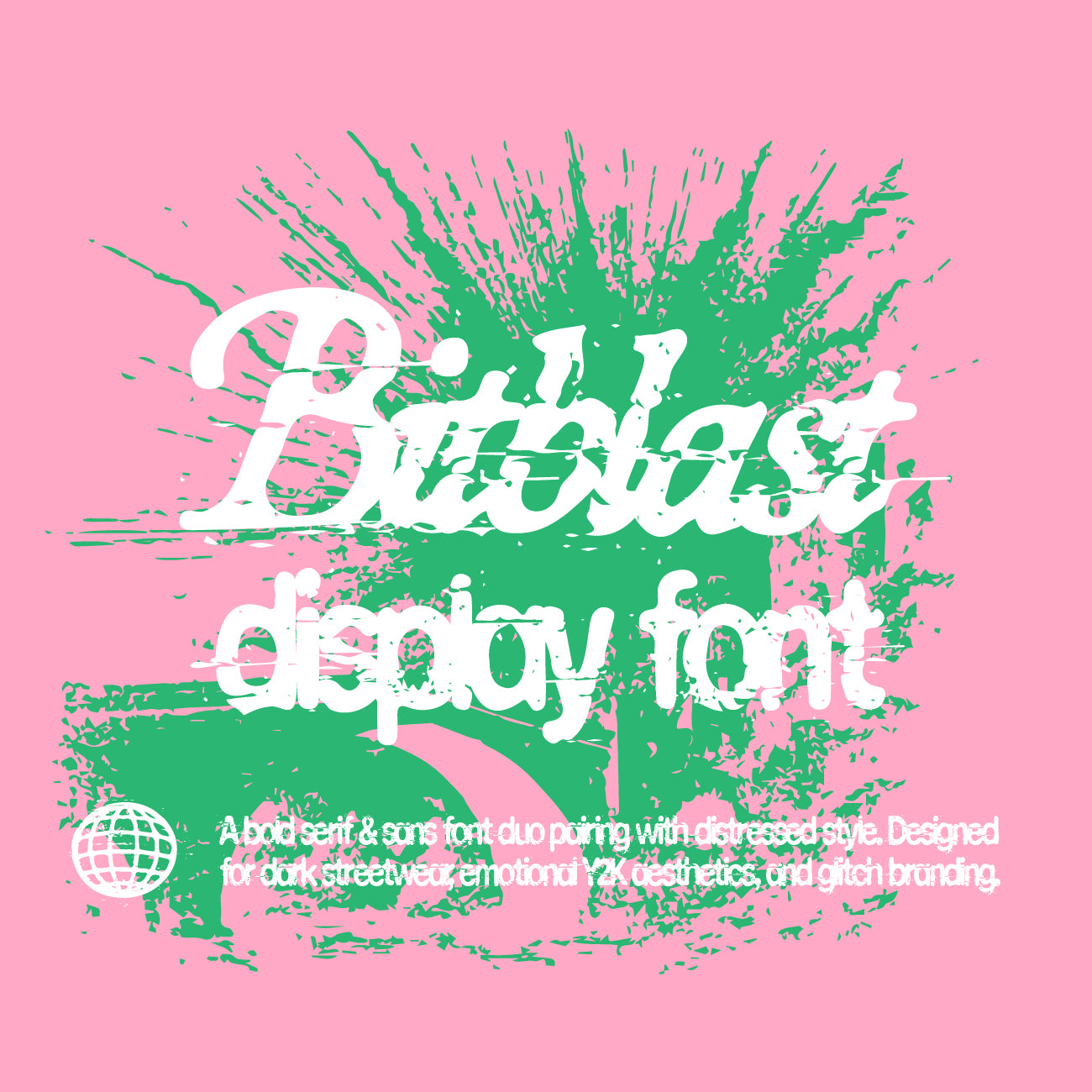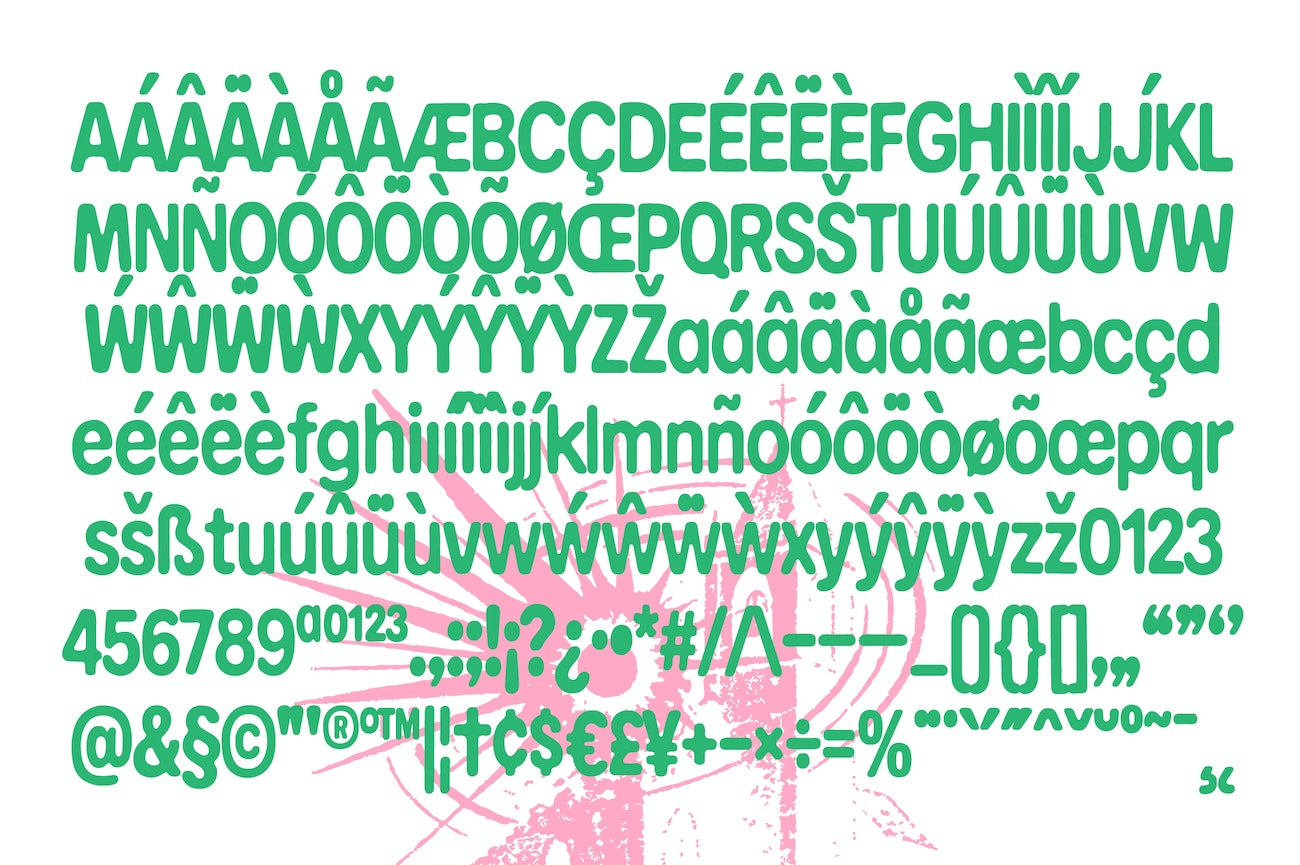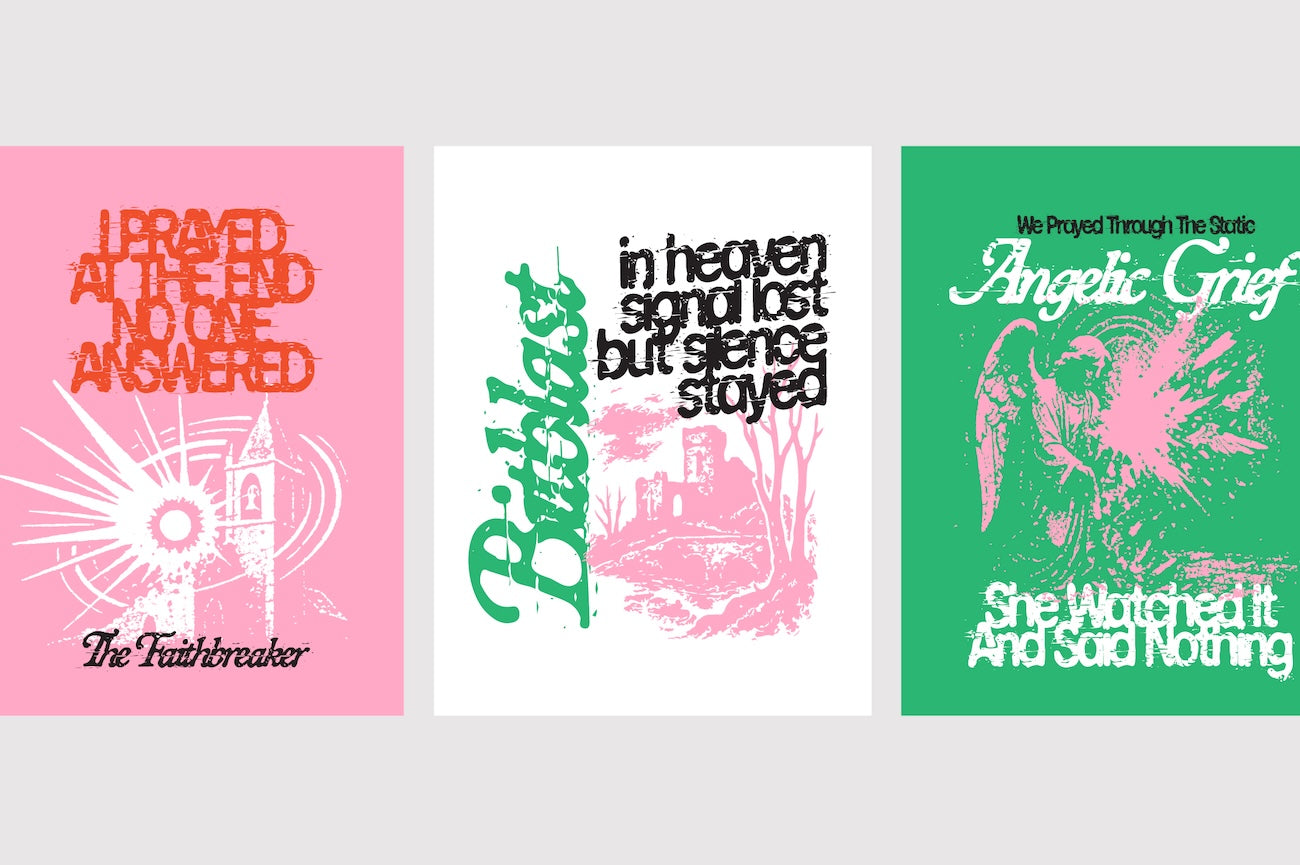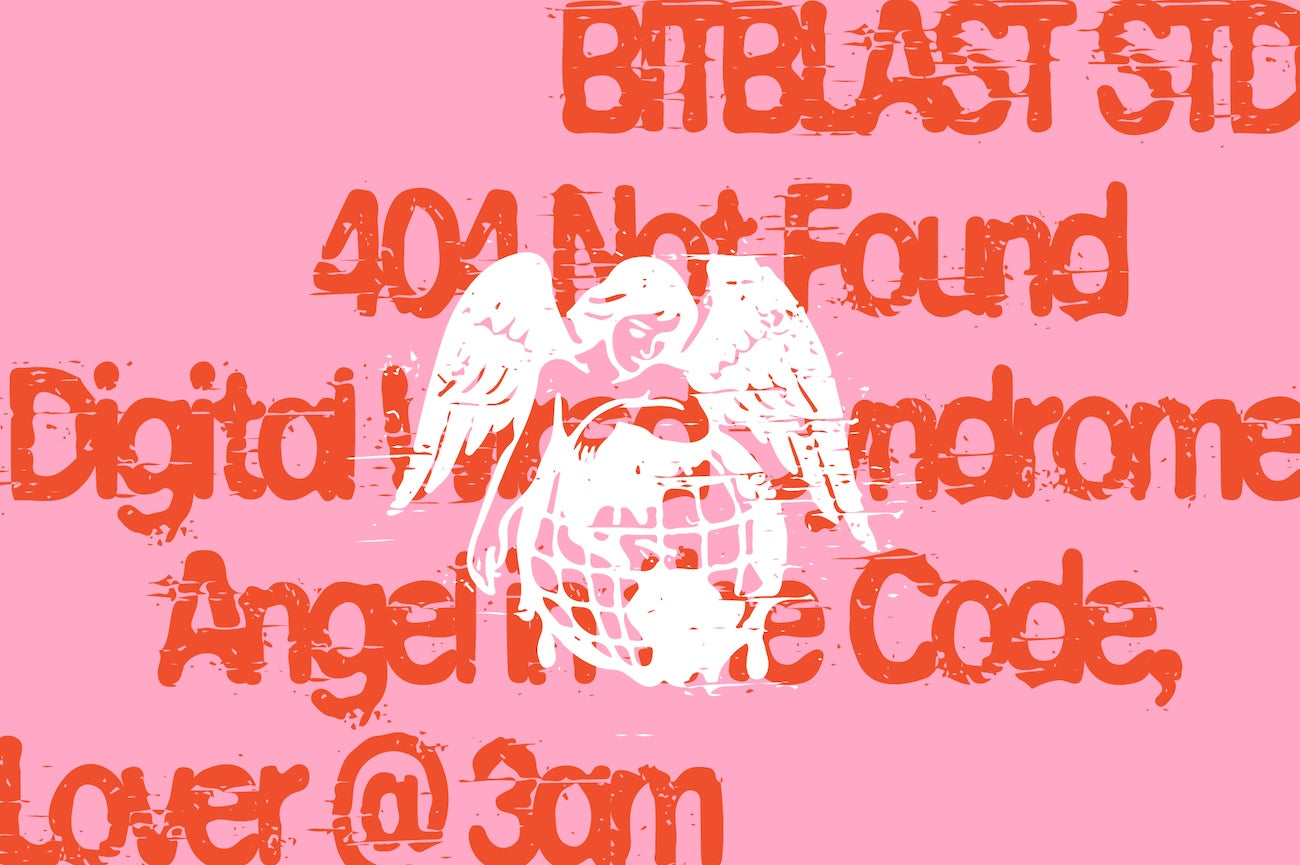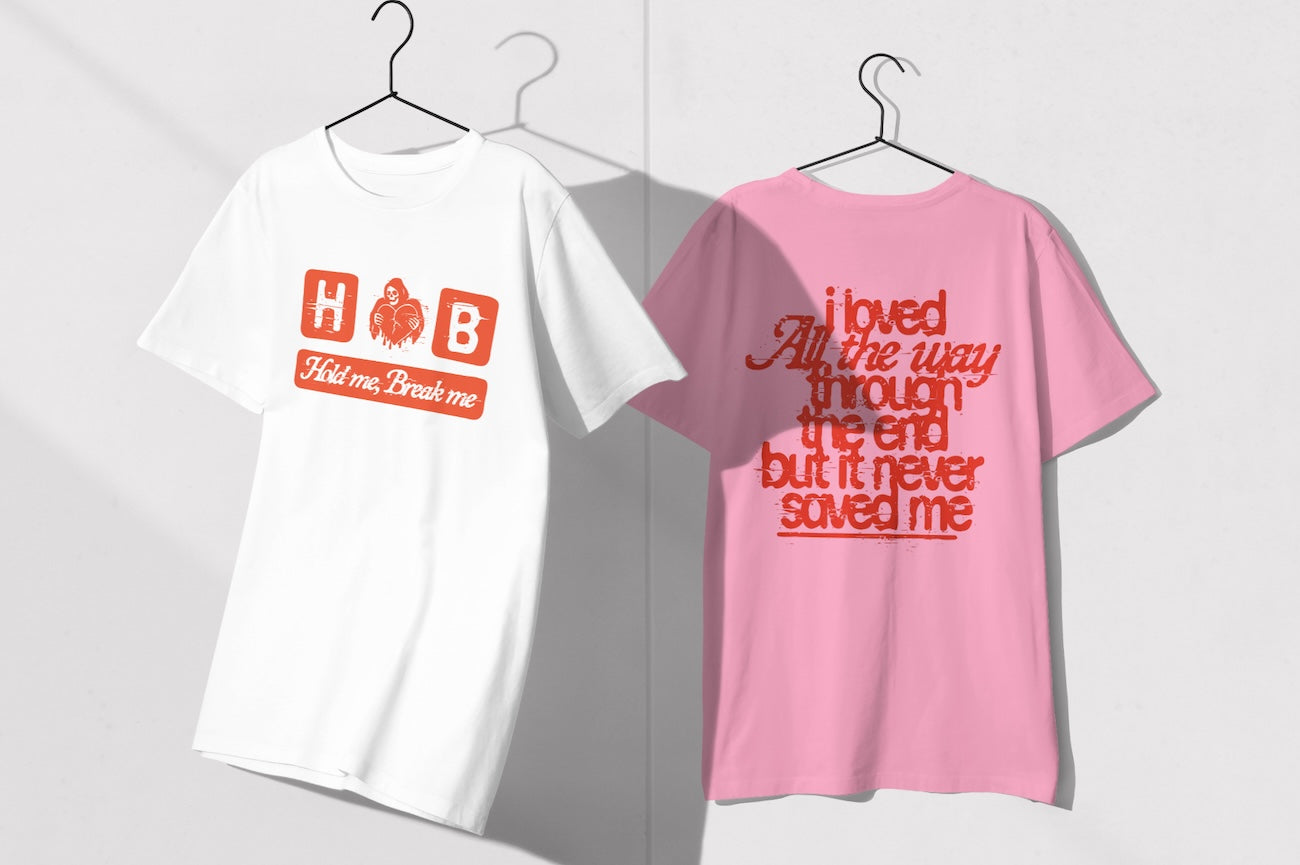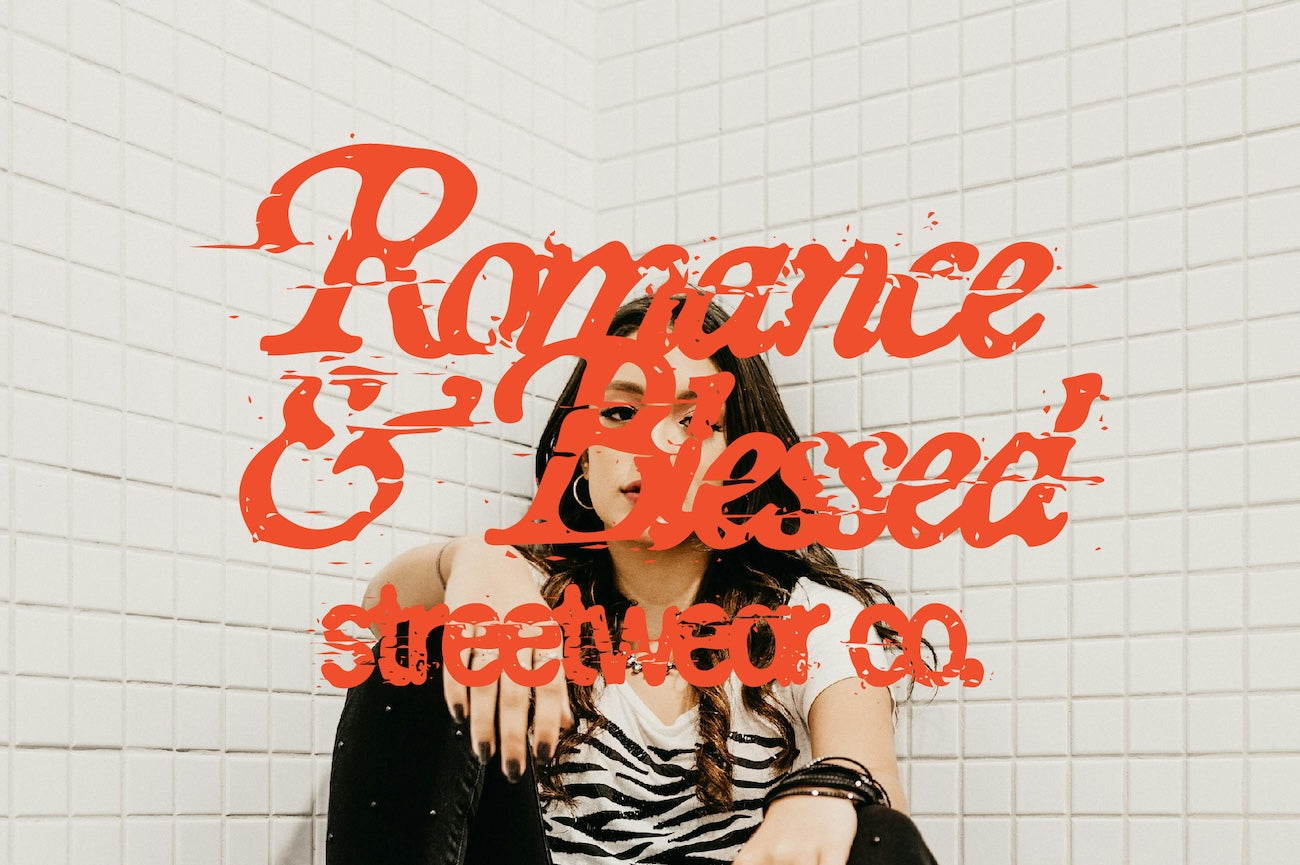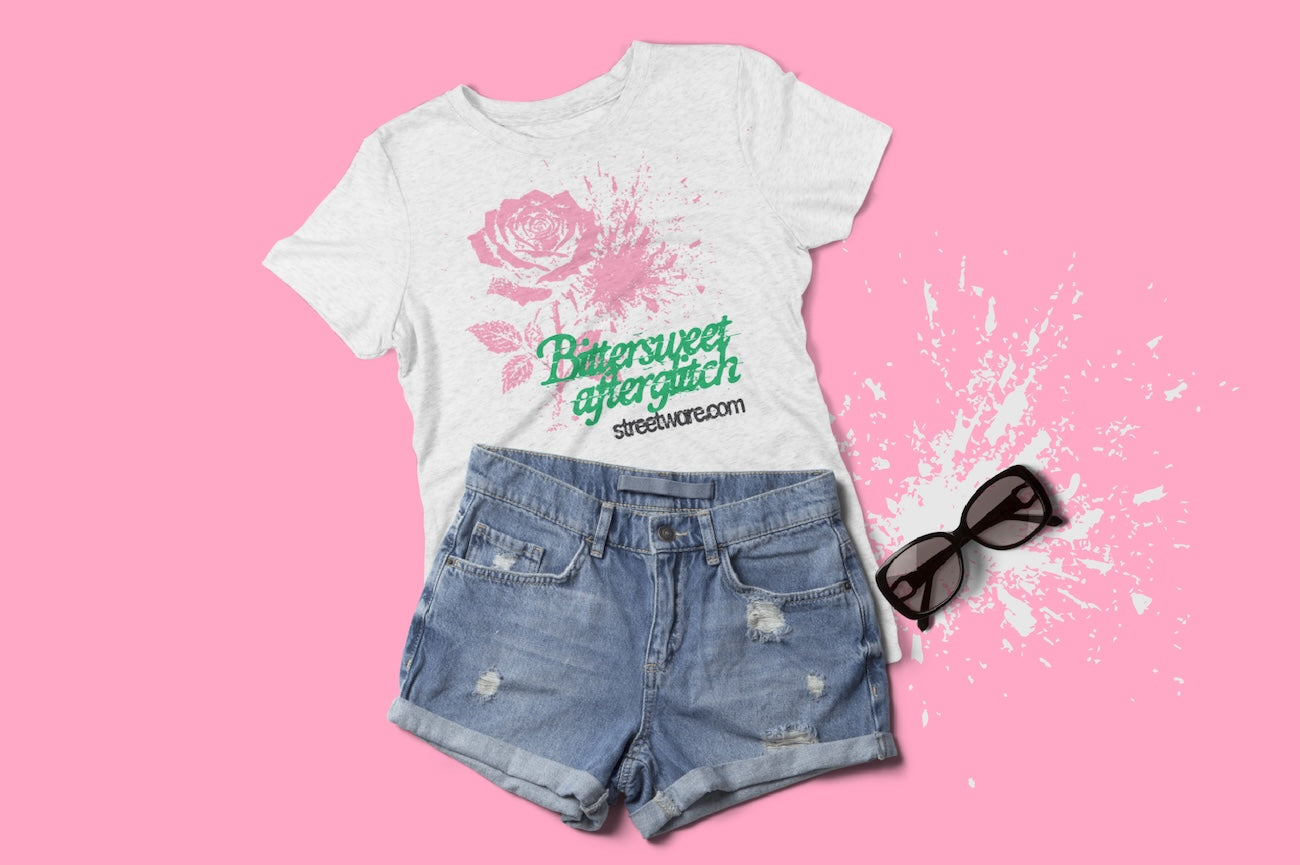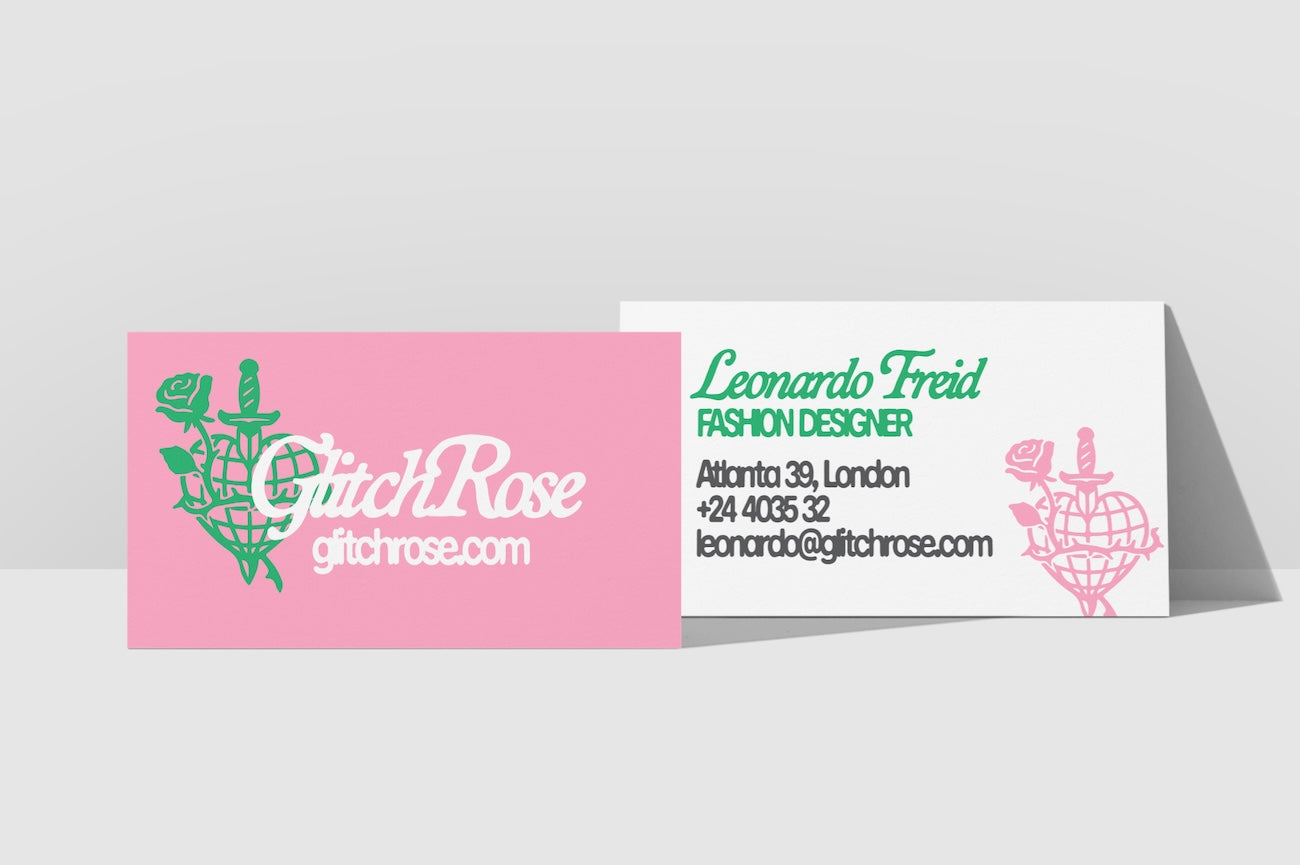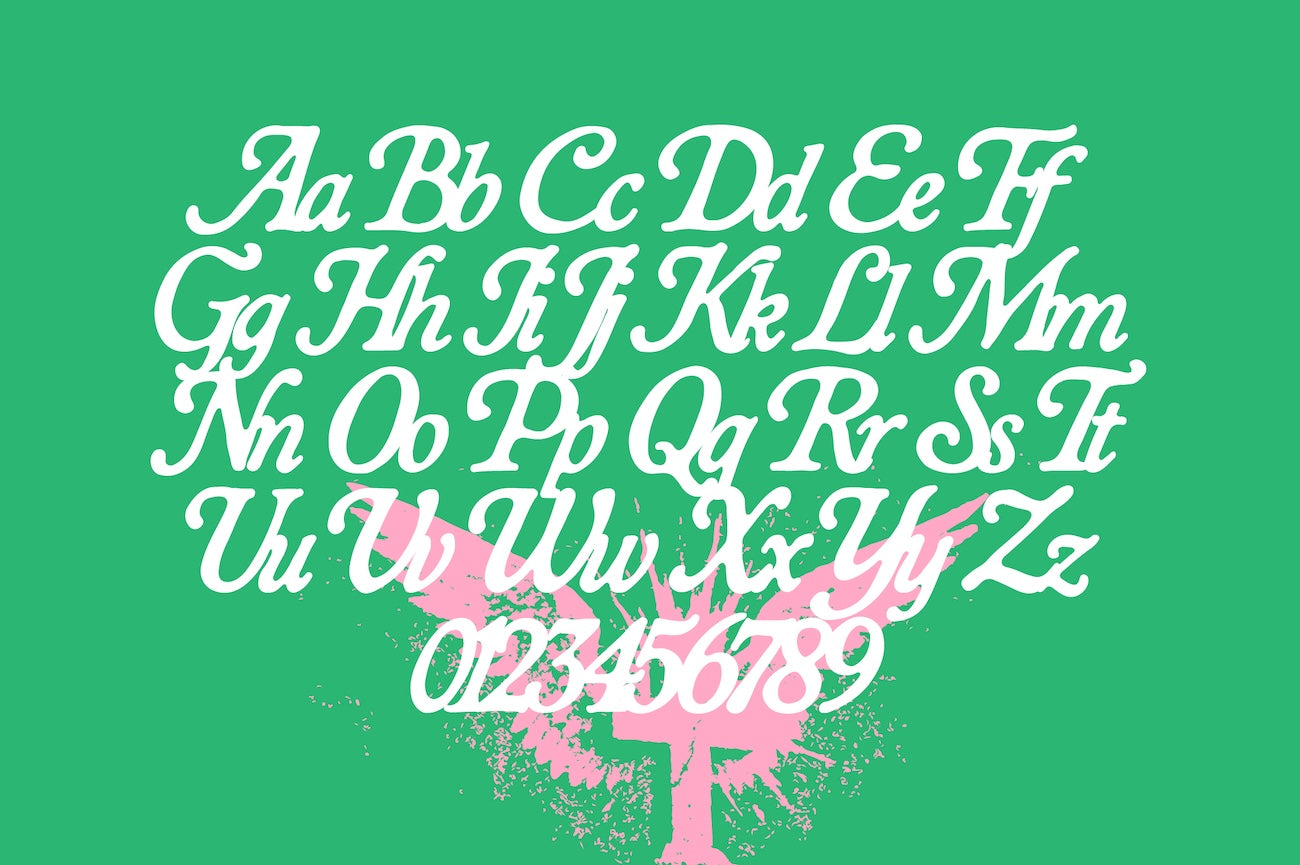
Bitblast – Y2K Display Font
Bitblast is a bold serif and sans font duo featuring a raw, distressed style, designed with sharp gothic elegance and a futuristic edge. It includes two fonts (serif italic and condensed sans), two style typefaces (regular and textured), uppercase and lowercase letters, numerals, symbols, punctuation, multilingual support, and PUA encoding for easy access.